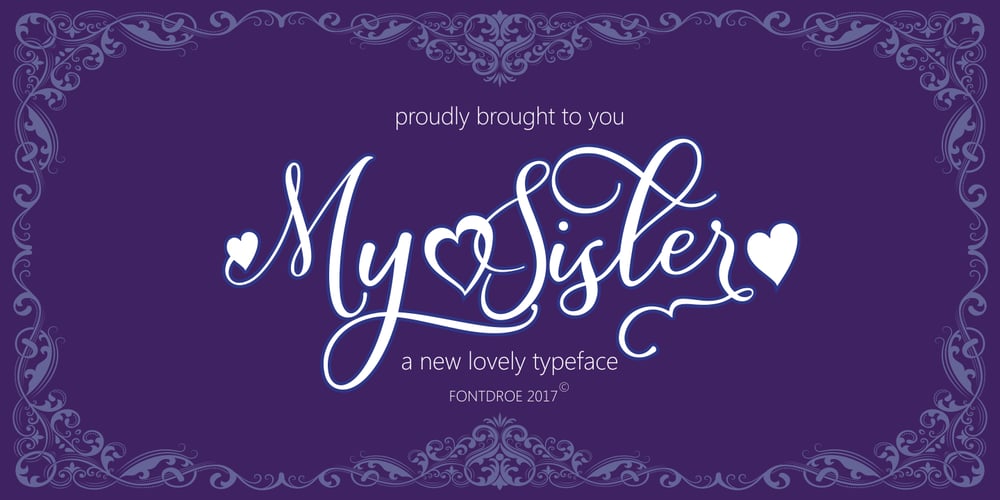
My Sister Font Family was designed by Mahdani and published by Fontdroe. My Sister contains 1 styles and family package options. My Sister is a new modern calligraphy typeface built in 658 glyphs. It has OpenType features with PUA encode. This is a smart font works with popular design software such as Photoshop, Corel Draw X version, Illustrator, Microsoft Office, etc. This modern calligraphy typeface welcomes you to use it for various purposes such as logo, card, wedding invitation, headings, signatures, t-shirt, letterhead, cutting, hot stamping, signage, labels, posters and more. It’s very craft friendly.